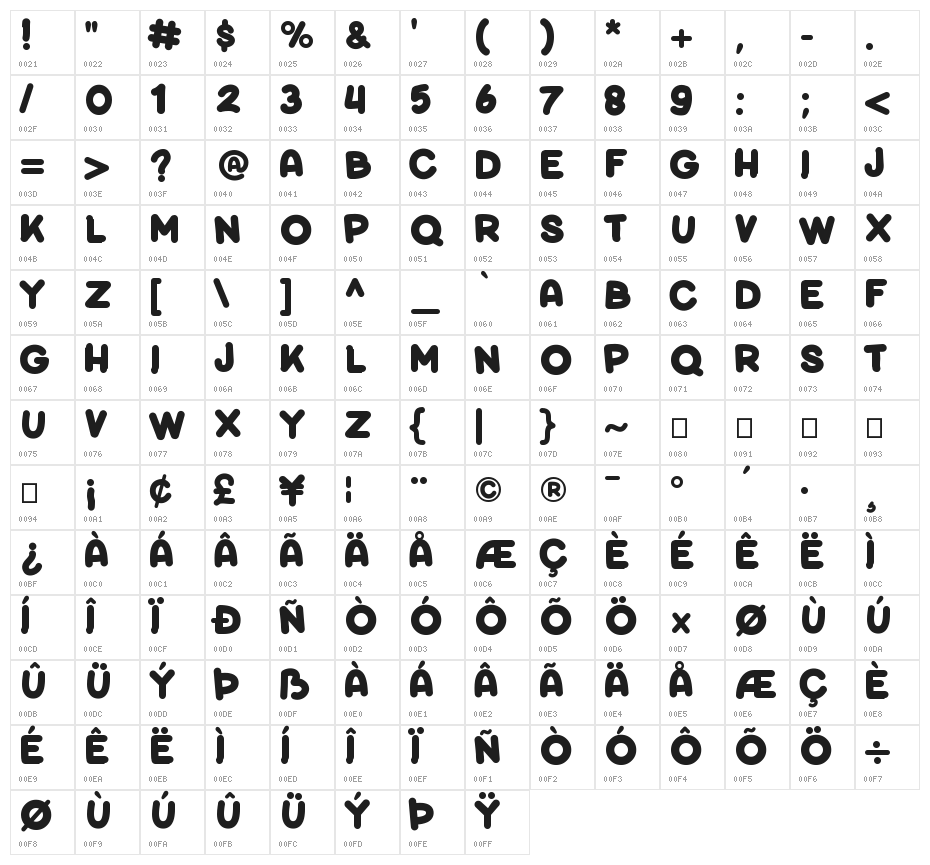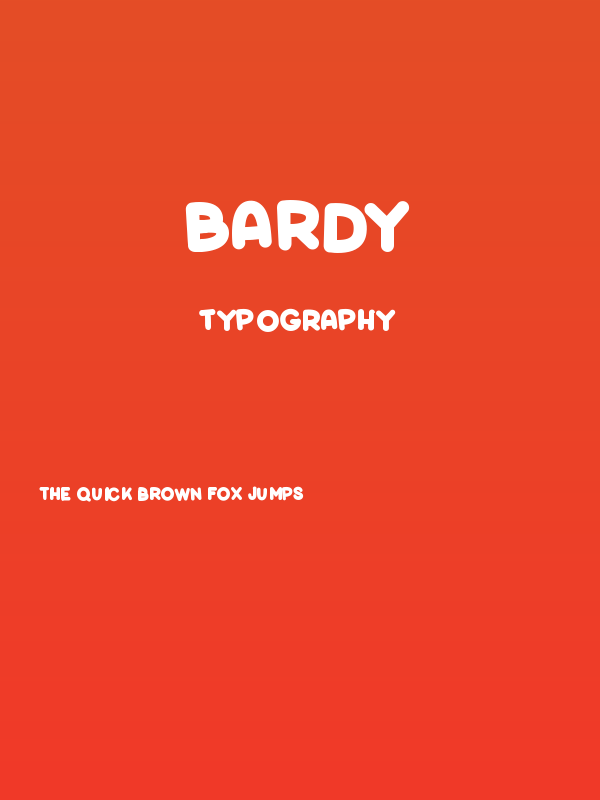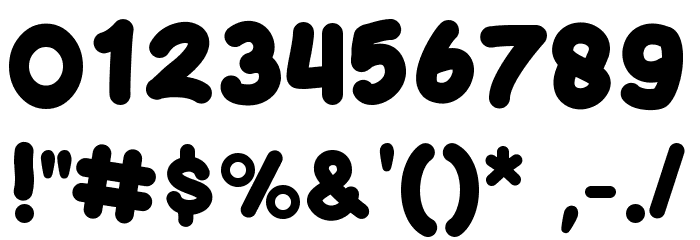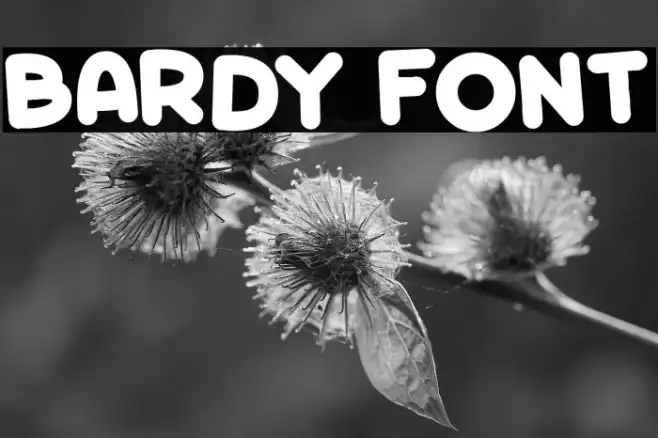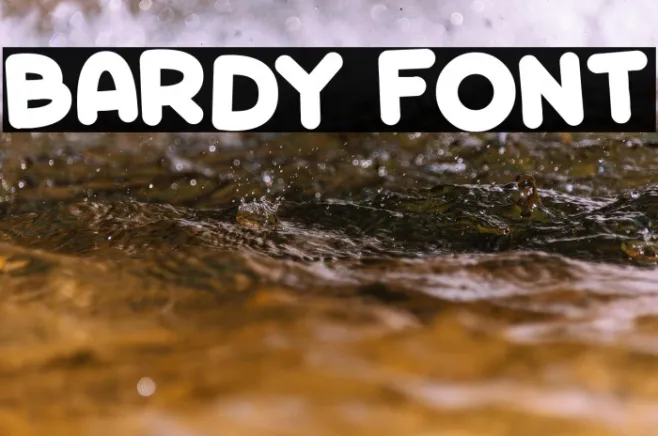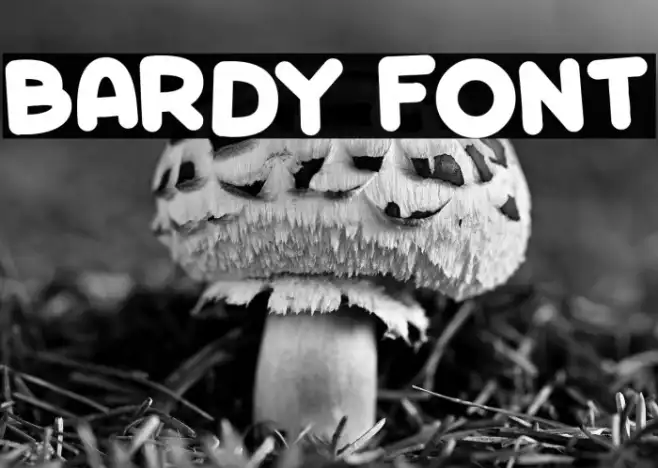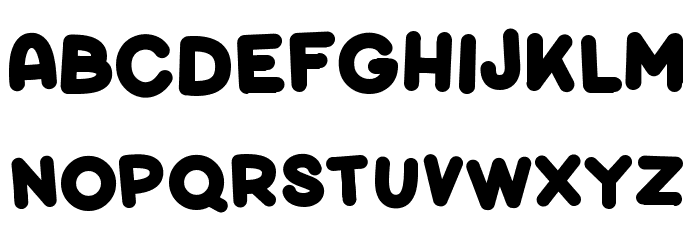
Bardy Font
Bardy Description
This playful and bold font features rounded, bubble-like characters that convey a sense of fun and approachability. The letters are thick and uniform, with a consistent stroke width that gives them a strong presence on the page. The rounded edges and lack of sharp angles contribute to a friendly and informal appearance, making it ideal for designs that aim to be inviting and engaging. The numbers and special characters maintain the same bubbly style, ensuring a cohesive look across all text elements. This font is particularly well-suited for projects that require a touch of whimsy and creativity.
| Proposed Projects | Children's books, playful branding, party invitations, casual posters, and social media graphics. |